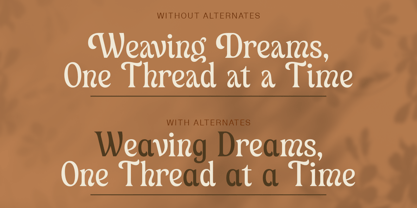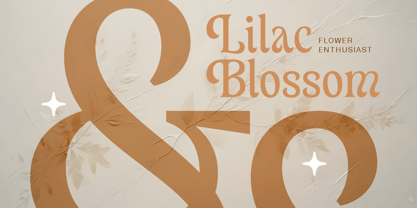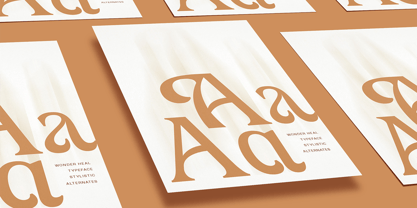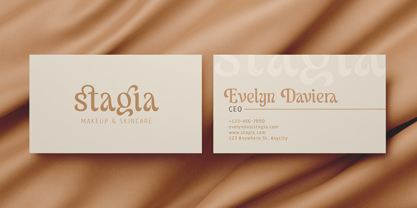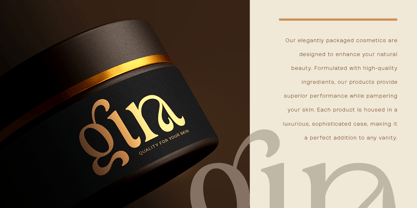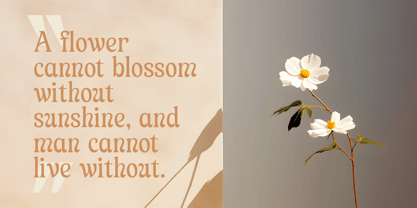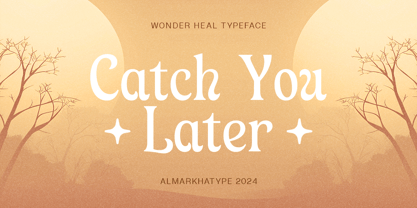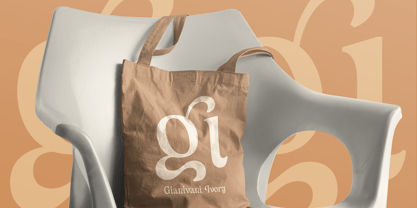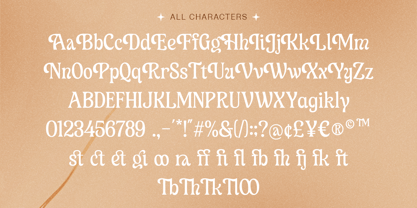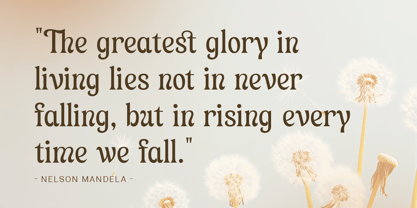
Wonder Heal
por Almarkha Type
A família de fontes Wonder Heal foi desenhada por Abdul Malik Wisnu e publicada pela Almarkha Type. Wonder Heal contém 1 estilos. Saiba mais sobre esta família
Introducing Wonder Heal — a sophisticated serif font that embodies timeless elegance and refined style. With its graceful, structured serifs and balanced proportions, Wonder Heal brings an air of luxury and charm to every project it touches. Featuring unique ligatures and meticulously crafted serif details, Wonder Heal allows you to create typography with classic beauty and a distinct personality. Perfect for wedding invitations, high-end branding, or upscale packaging, this serif font adds a touch of exclusivity and grace. Experience the refined allure of Wonder Heal and elevate your designs to a new level of sophistication.
Designers: Abdul Malik Wisnu
Fundição: Almarkha Type